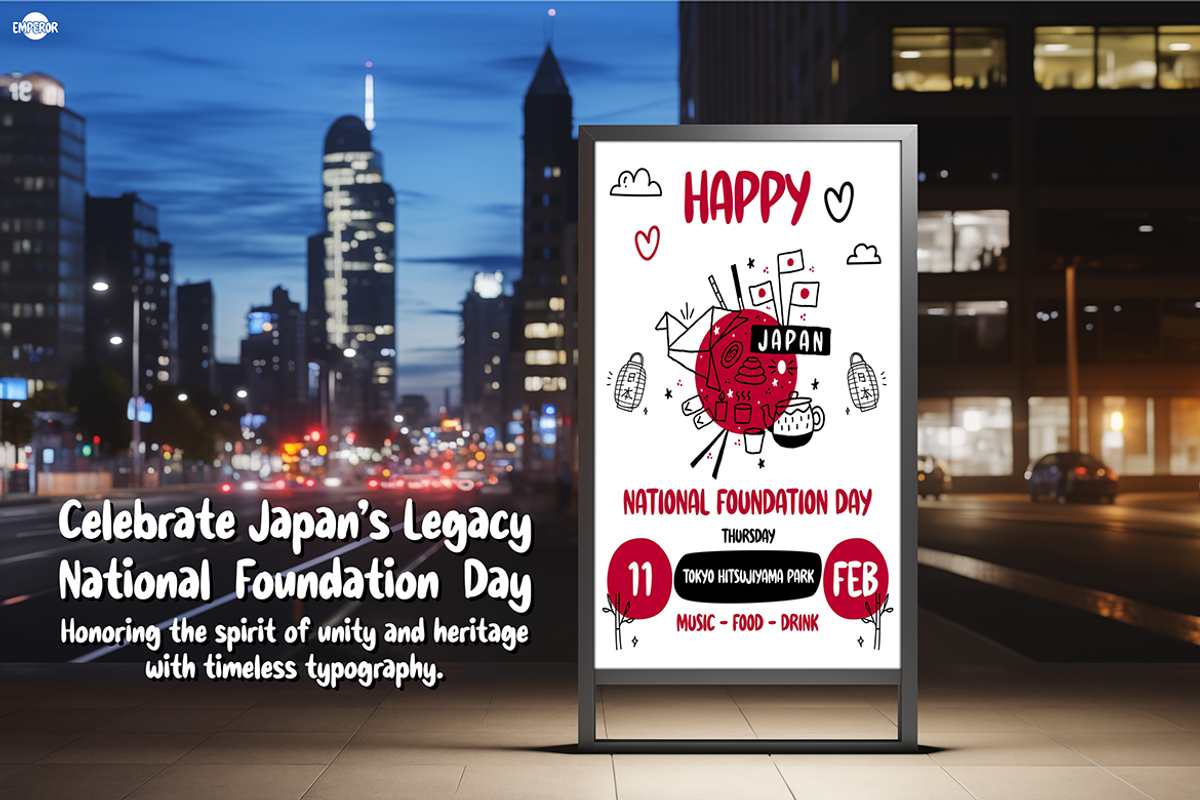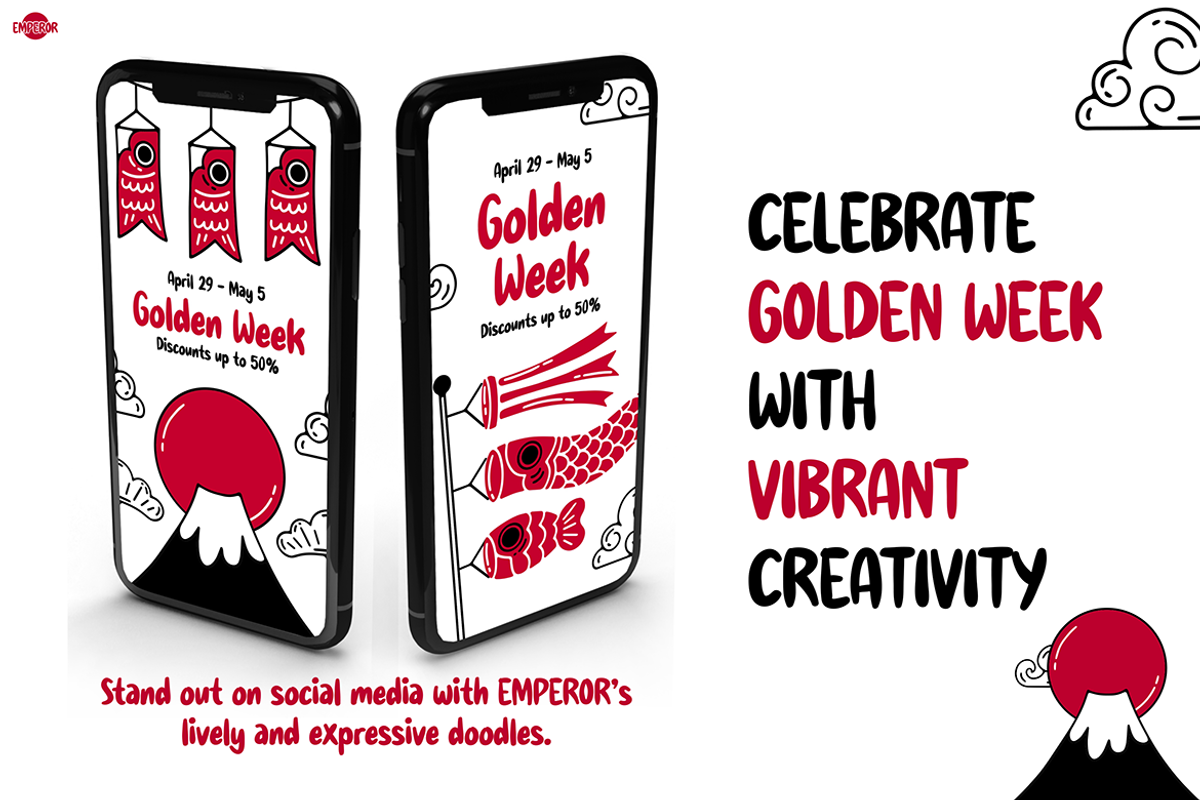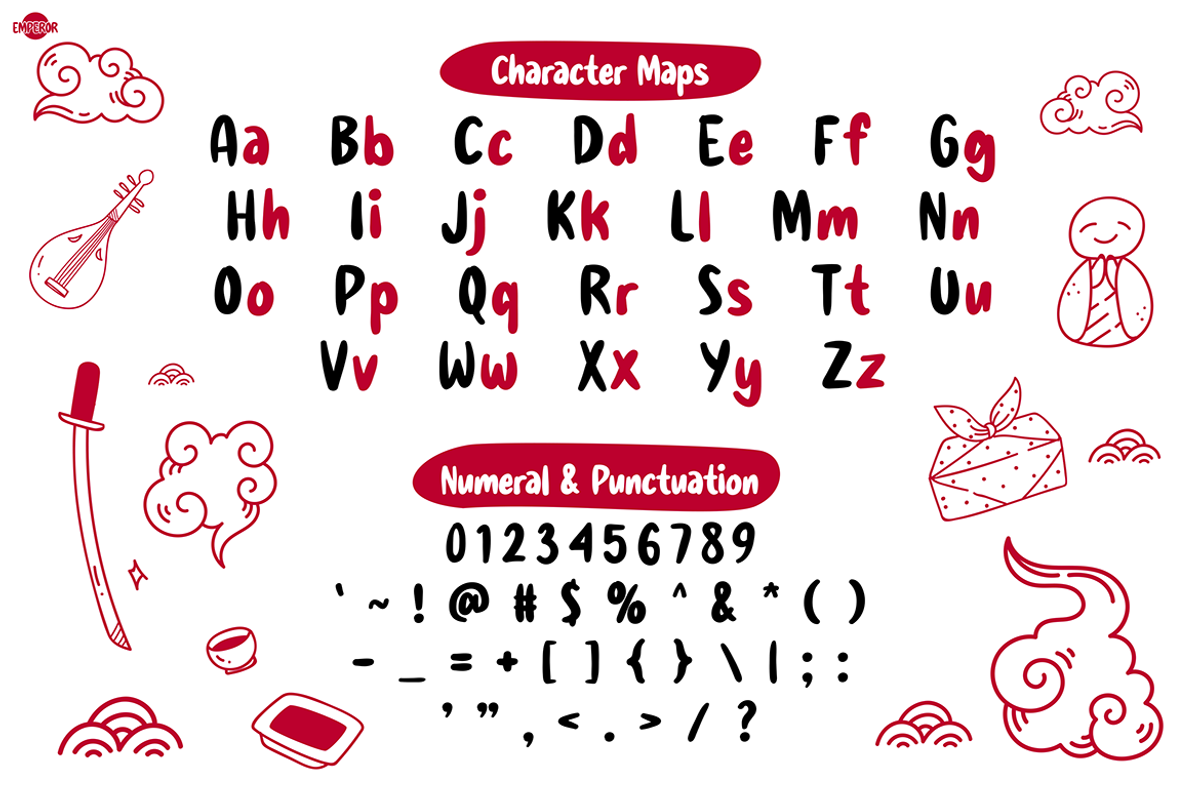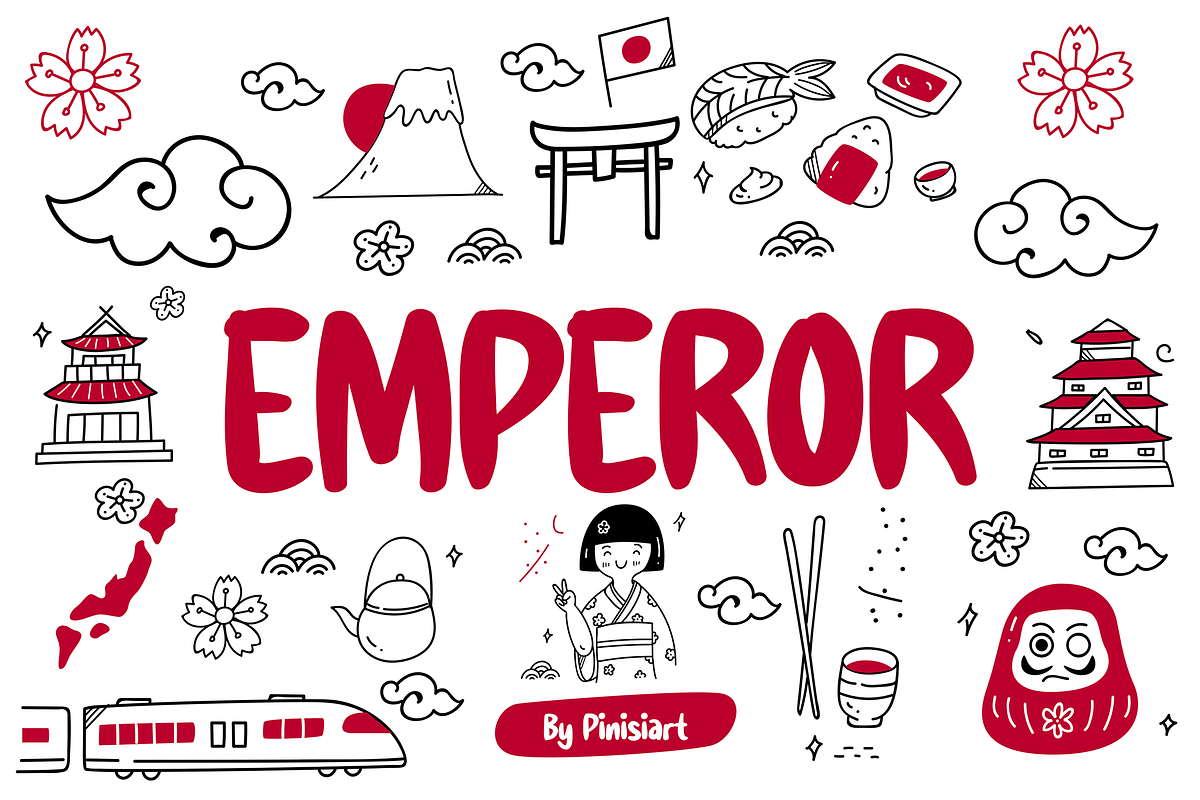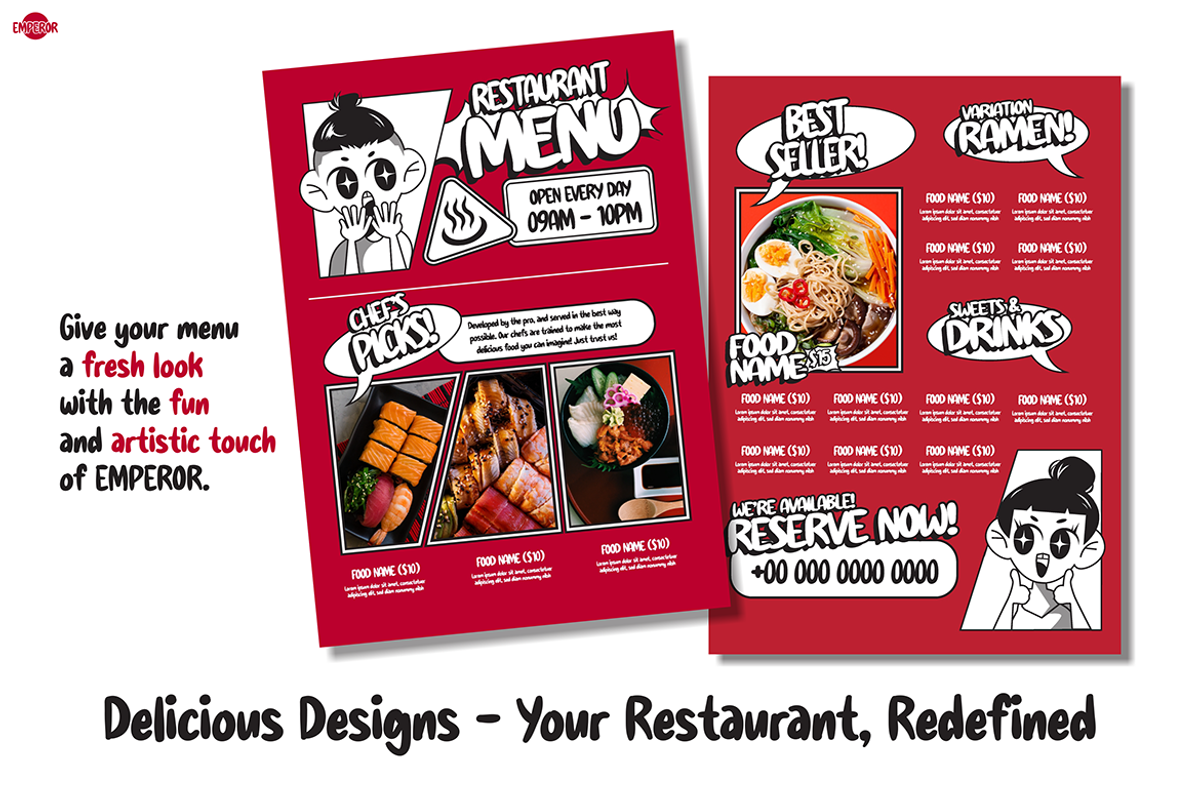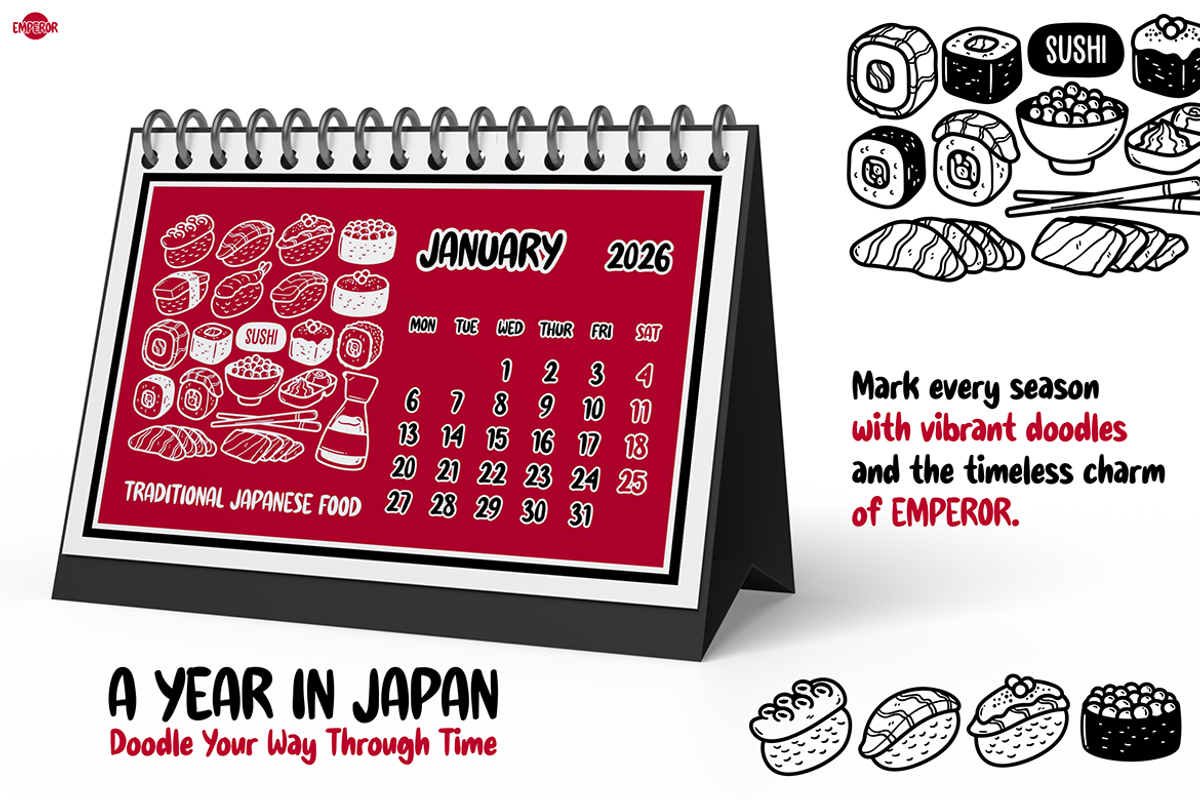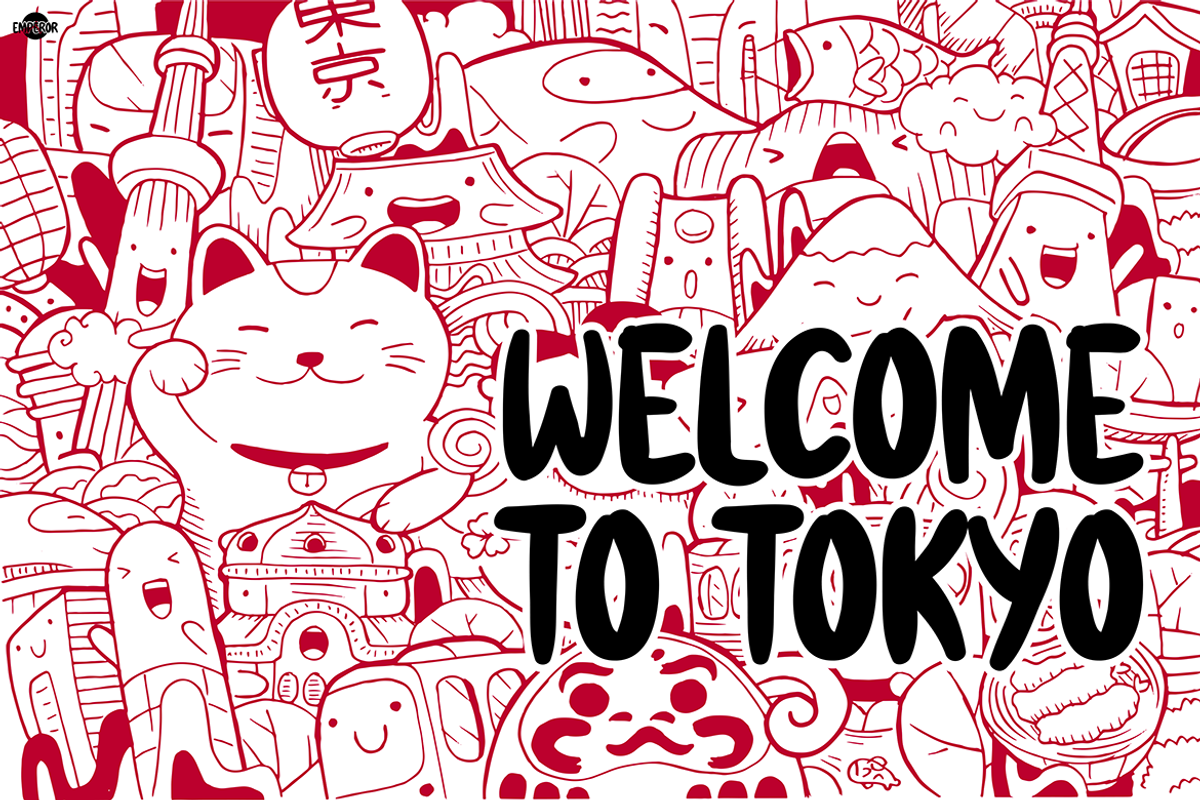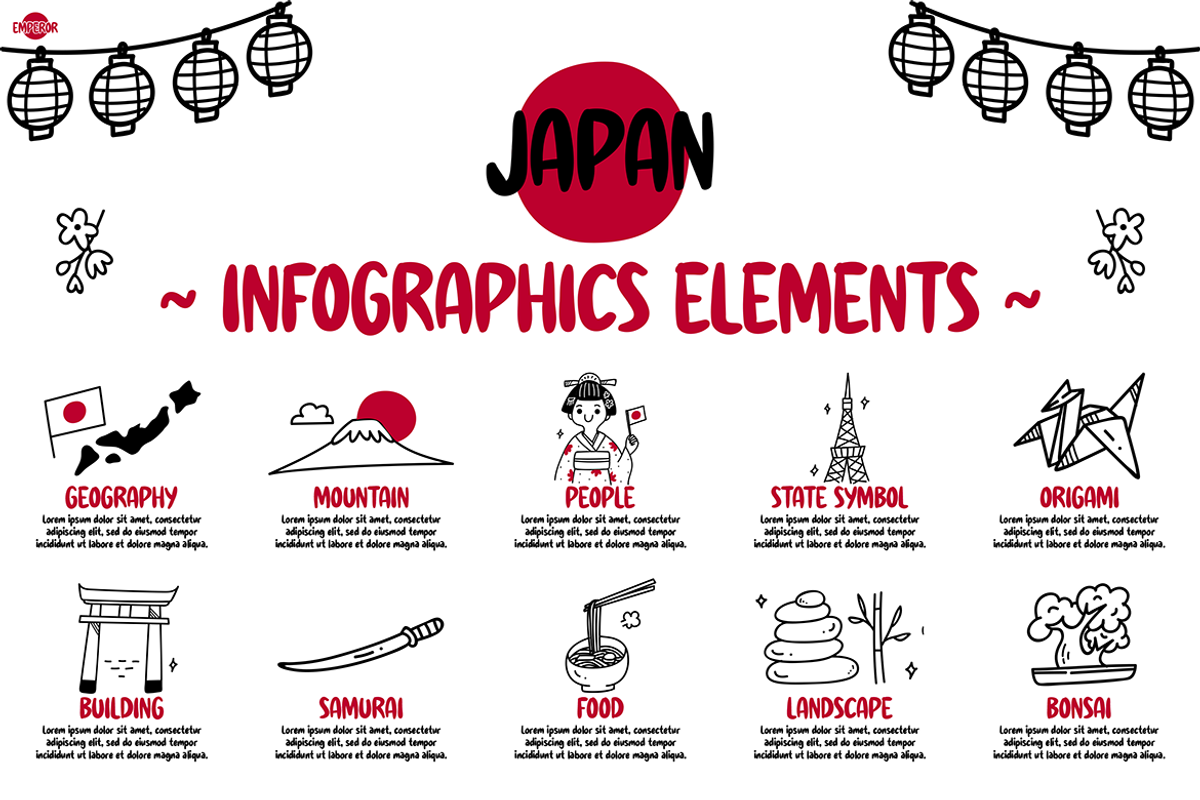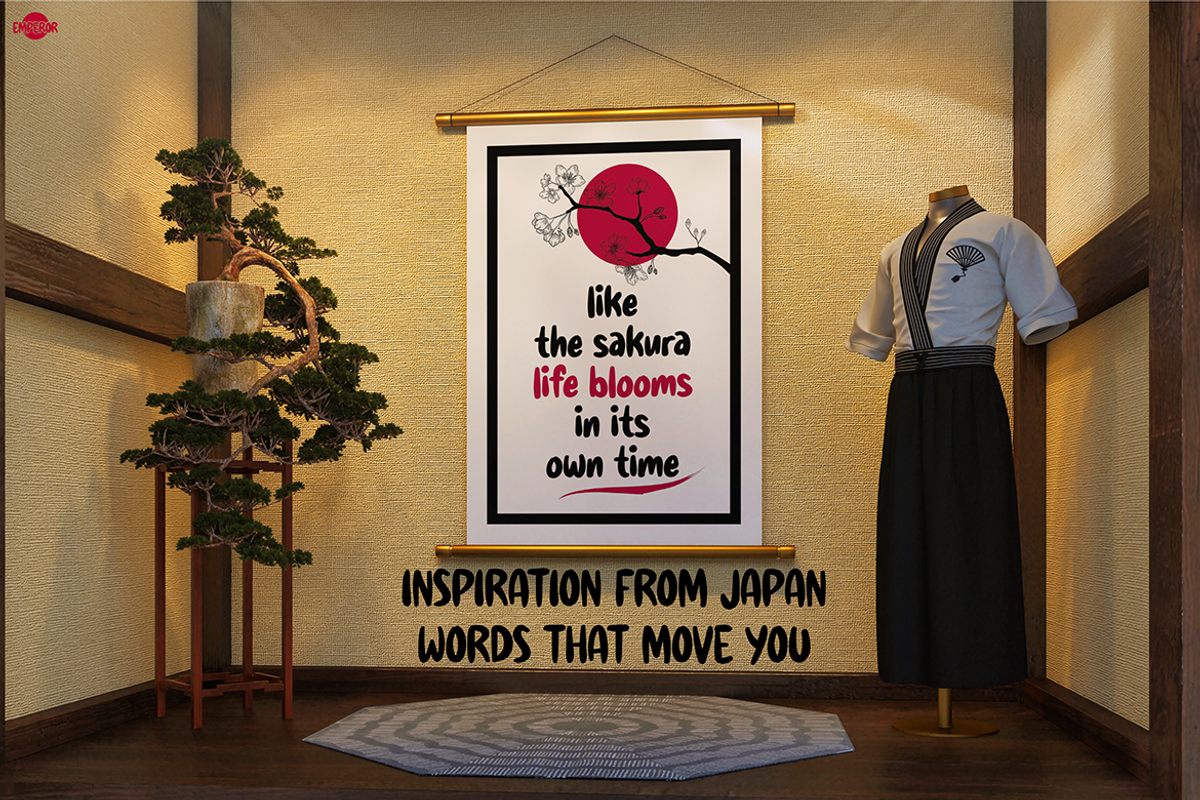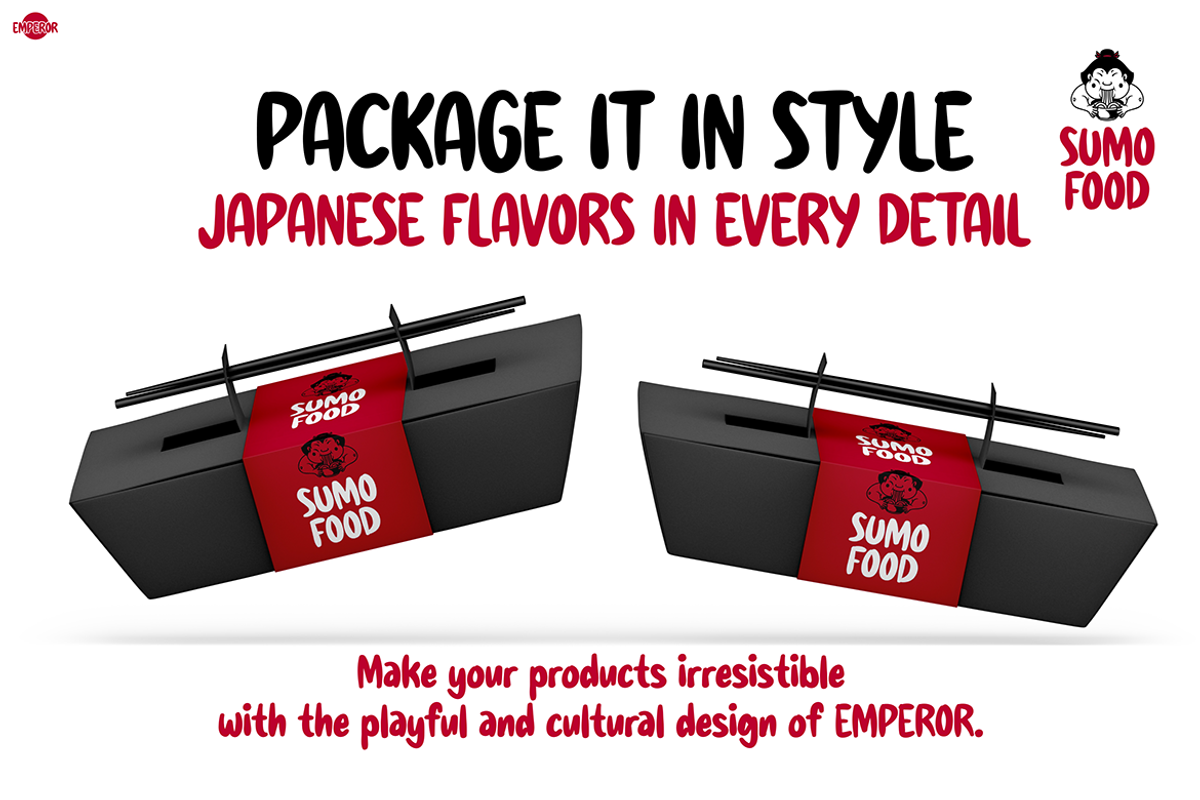
EMPEROR
Emperor - Unleash the Magic of Japanese Cartoons
Emperor is a cartoon-themed font that brings the vibrant and imaginative world of Japanese cartoons to life.
Inspired by the iconic styles of manga and classic anime, this font radiates playful energy and adventure.
Perfect for a wide range of creative projects—branding, posters, and game designs Emperor adds a unique touch that appeals to all ages, from kids to adults.
Bring the story of Japanese cartoons into your designs with Emperor and let these colorful characters enliven your work!